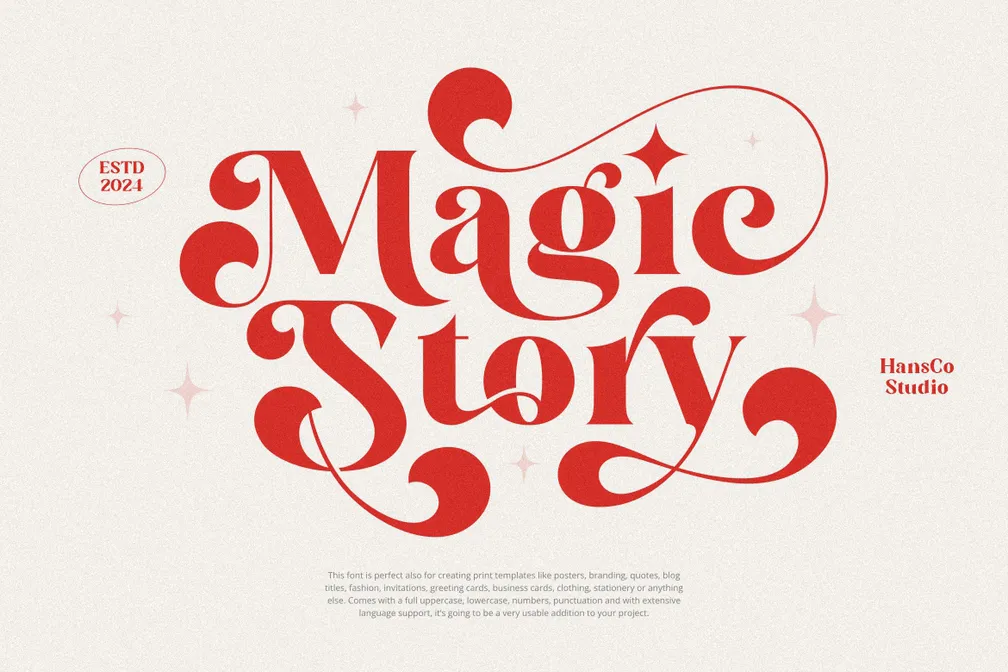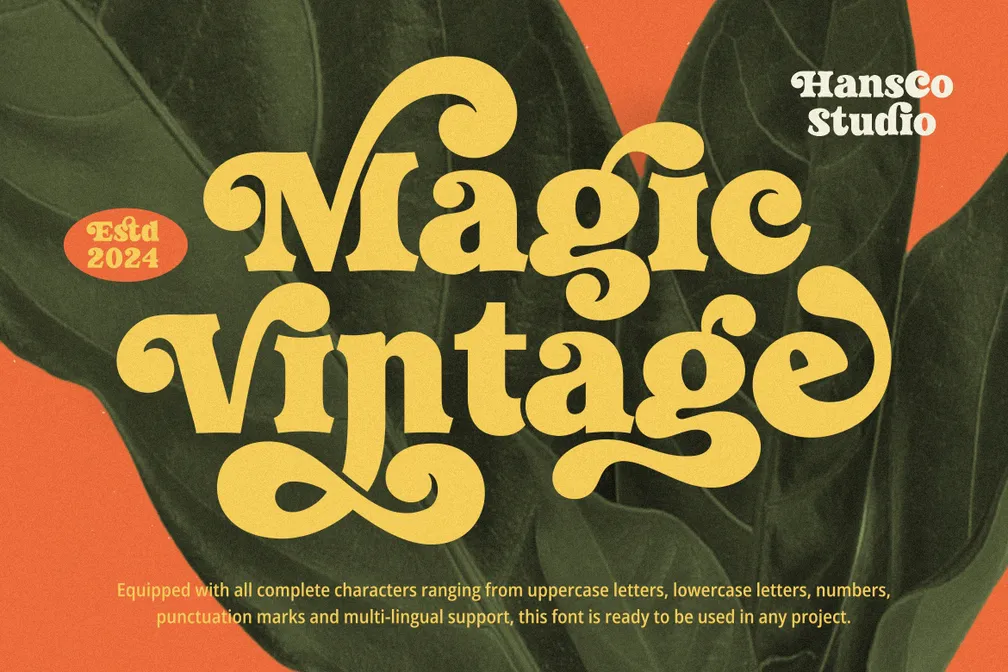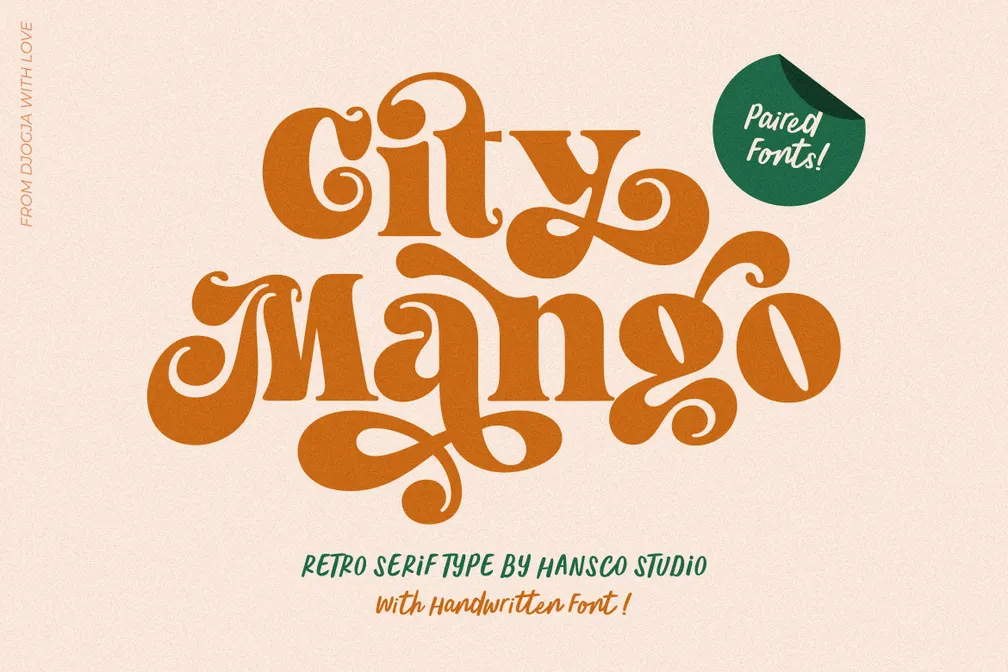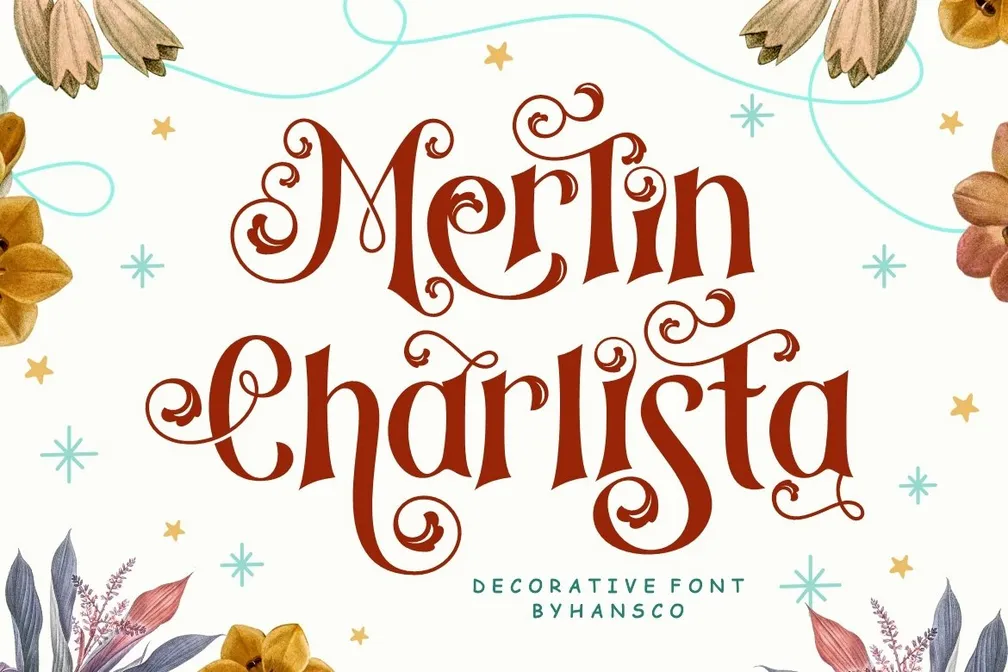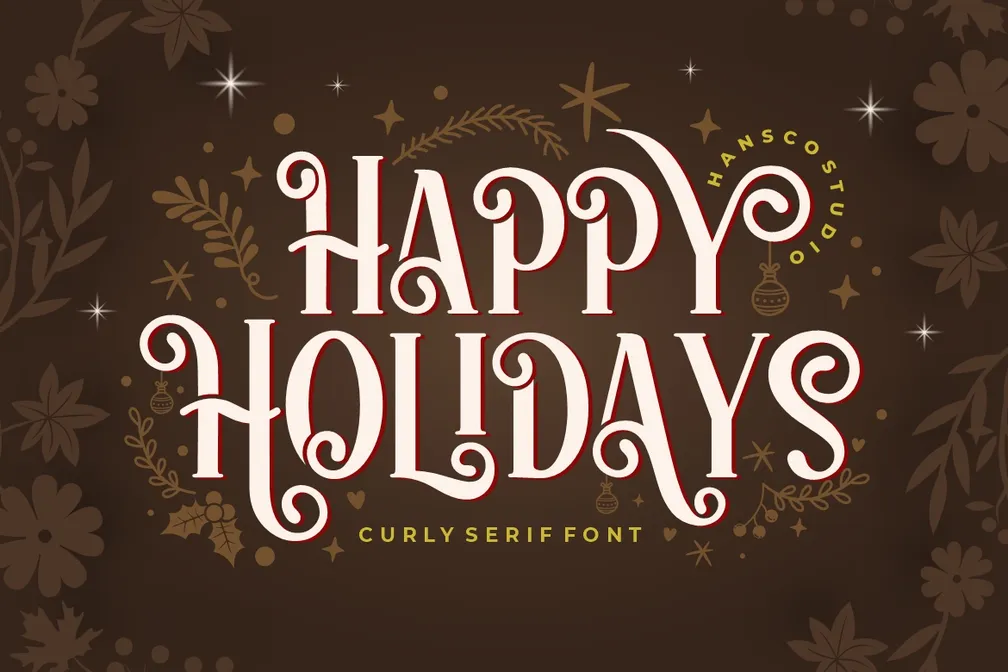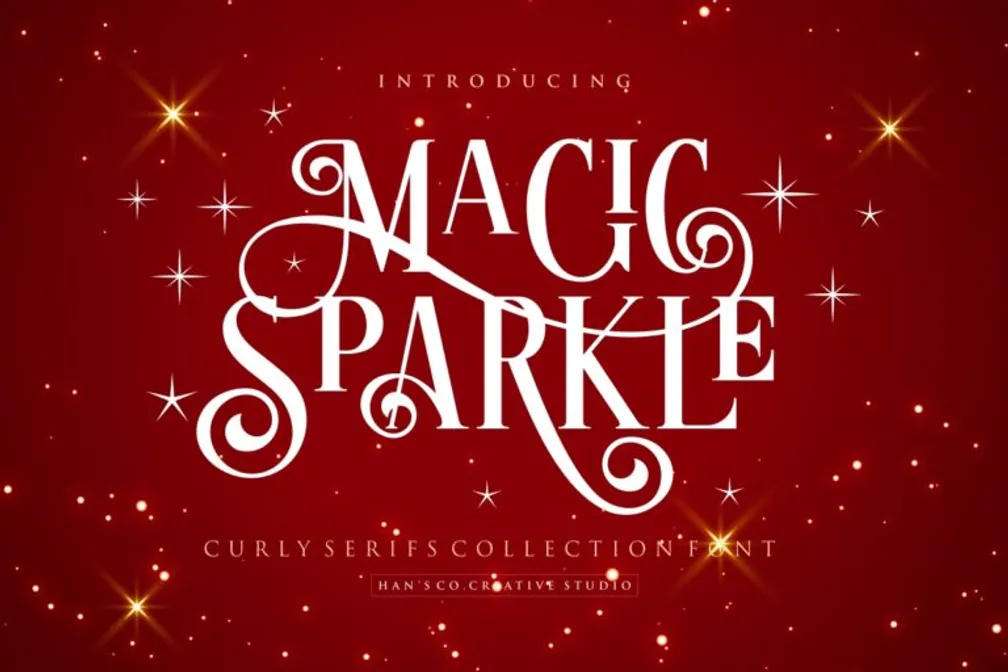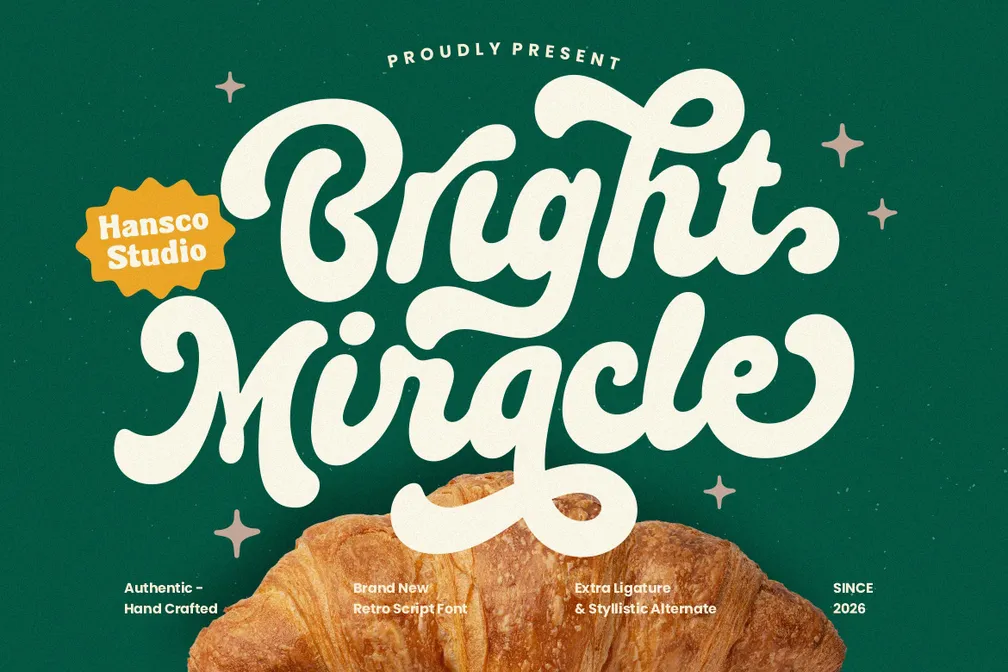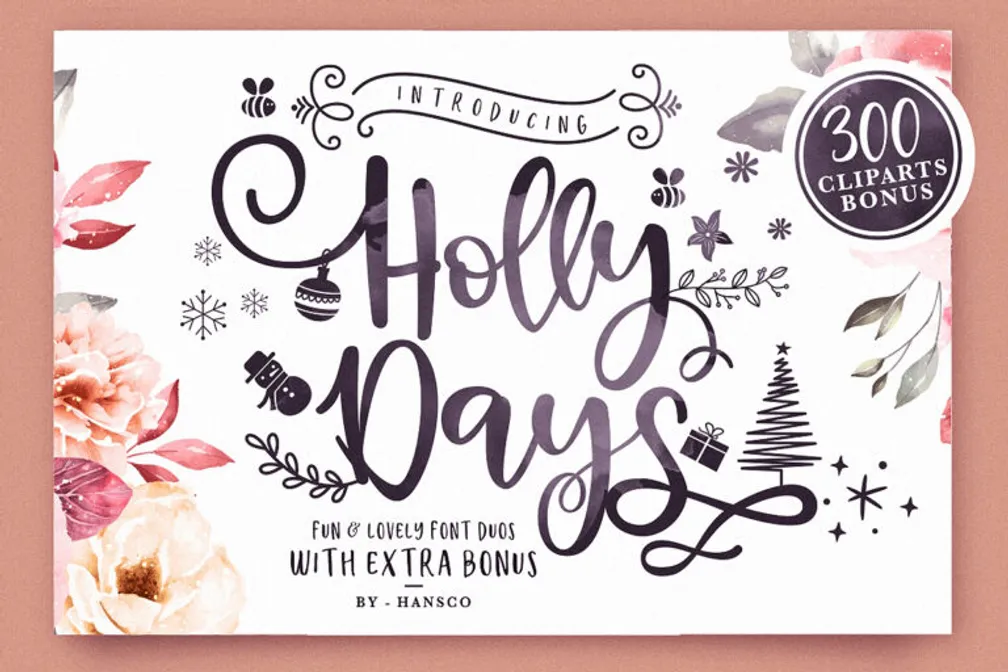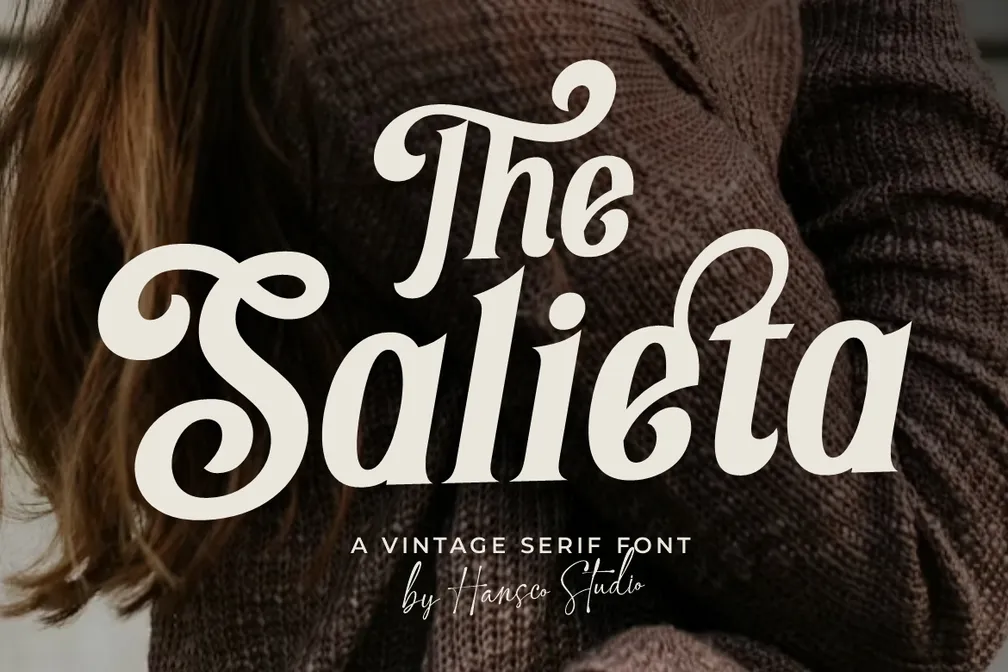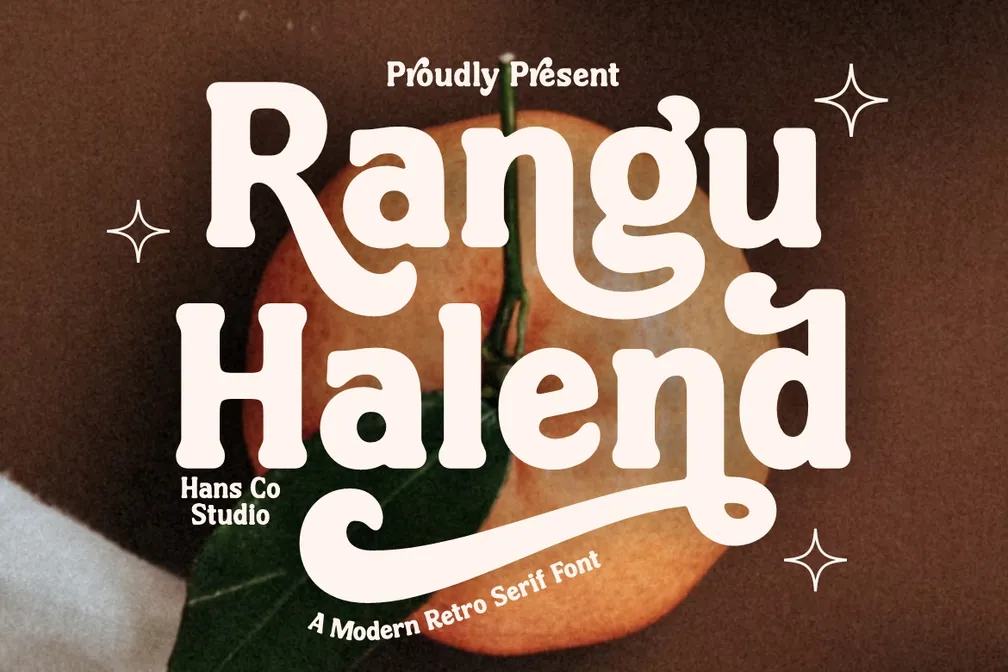
20 Best Fonts for Thanksgiving: Warm, Vintage Typography Ideas
Fonts for Thanksgiving play a key role in shaping the mood of seasonal designs, helping convey warmth, gratitude, and togetherness through typography. Research in design and visual communication suggests that serif and vintage-inspired fonts are often preferred for holiday themes because they evoke familiarity, tradition, and emotional comfort.
In this article, we’ll explore a curated selection of Thanksgiving fonts that capture this essence, helping you find the perfect typefaces to create beautiful, inviting, and meaningful seasonal designs.
Key Takeaways:
• Fonts for Thanksgiving work best with warm serif, retro, and handwritten styles that create a cozy and nostalgic feel.
• Choosing the right font helps convey the spirit of gratitude, togetherness, and festive warmth in your designs.
• Swash details and vintage aesthetics can make Thanksgiving designs more expressive and visually appealing.
Handpicked Fonts for Thanksgiving
If you’re wondering what is a good font for Thanksgiving, the best choices are usually warm serif, vintage, or retro-inspired typefaces that create a cozy and welcoming feel. Save your time scrolling; below are 20 of the best fonts to choose.
1. Letter Magic
Spark warmth and gratitude with Little Magic! Its playfully nostalgic charm brings a cozy retro vintage aesthetic for capturing the heartfelt spirit of Thanksgiving.
2. Bright Miracle
Infuse your designs with effortless charm. Featuring smooth curves and a natural, handwritten style, it brings a cozy and welcoming Thanksgiving vibe.
3. The Salieta
As the best font for Thanksgiving, it blends luxury and vintage elegance. Its graceful curves and sharp swashes make it ideal for classy, timeless Thanksgiving designs.
4. Rangu Halend
Rangu Halend delivers a bold retro serif style ideal for Thanksgiving-themed designs. Its alternative swash glyphs help create warm and vintage-inspired visuals.
5. Kastil Bridge
Bring a refined touch to your Thanksgiving creations with Kastil Bridge. This bold serif font combines vintage luxury with timeless elegance.
6. Mekuria Salten
Add a warm retro touch instantly with this Thanksgiving font. Its swash alternates create a beautiful, clean, and elegant style.
7. Destiny Gorgeous
Destiny Gorgeous is a refined retro serif font with a graceful, feminine charm. Its vintage-inspired style blends beautifully with an elegant, modern touch.
8. History Nineties
History Nineties, enriched with smooth swash details, brings together modern style and refined elegance.
9. Holiday Mango
Holiday Mango is a friendly retro slab serif font ideal for Thanksgiving design. Its smooth curves and optional swash details give every design a soft, nostalgic vintage vibe.
10. Magic Seventies
Magic Seventies blends modern elegance with a feminine retro feel. Its smooth swash accents give every character a unique and graceful personality, perfect for fonts for Thanksgiving designs.
11. Hanela Rusty
Add a warm, retro-inspired touch with this bold and simple vintage serif font. Featuring smooth swash alternatives for a charming look.
12. Sunday Eighties
Beyond its warm and inviting look, this bold retro vintage serif font adds a simple yet timeless touch to your special moments.
13. Magic Story
Living up to its magical name, this font blends a fun, chic serif style with elegant swashes, making it a versatile choice for any design.
14. Magic Vintage
Create a timeless and nostalgic feel with this bold serif font, enhanced by swash alternates that naturally draw attention.
15. City Mango
City Mango is one of the charming fonts for Thanksgiving that blends playful nostalgia with a strong vintage aesthetic. It adds a cozy retro touch to any creative idea.
16. Shine Coasty
This bold retro serif font brings a cozy vibe to your designs, enhanced by its vintage aesthetic and elegant swash accents.
17. Merlin Charlista
Feels both playful and inviting! This decorative font features elegant swashes and ornamental elements that create a charming, handcrafted vibe.
18. Happy Holidays
Happy Holidays features a playful decorative style with charming swirly details. Its handwritten look adds a warm, joyful touch.